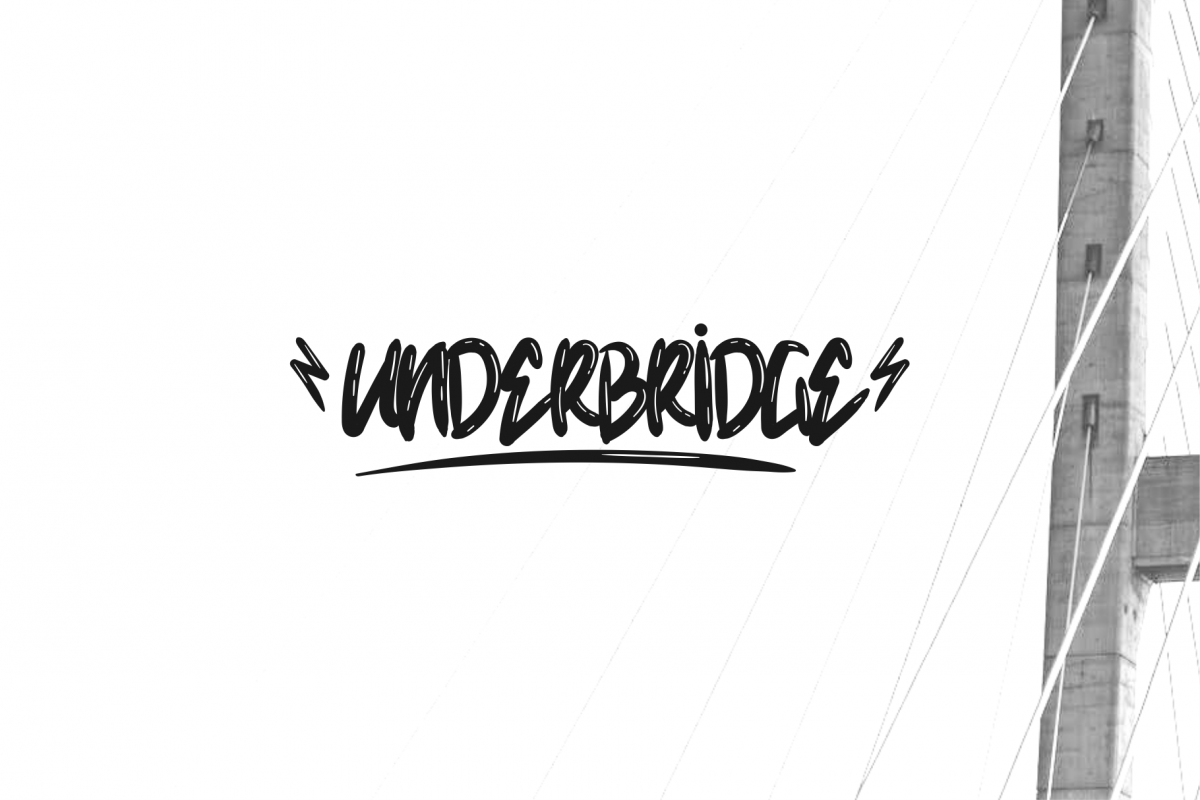
Underbridge
Underbridge is a font with a wild handwriting style that created masculine font harmony, perfect for your male or something associated with high adrenaline. This font was created based on the desire to create something wild, free, and rebellious. This font is suitable printed in any media, such as t-shirts, snapbacks, skateboards or anything that requires a man's touch.
Underbridge